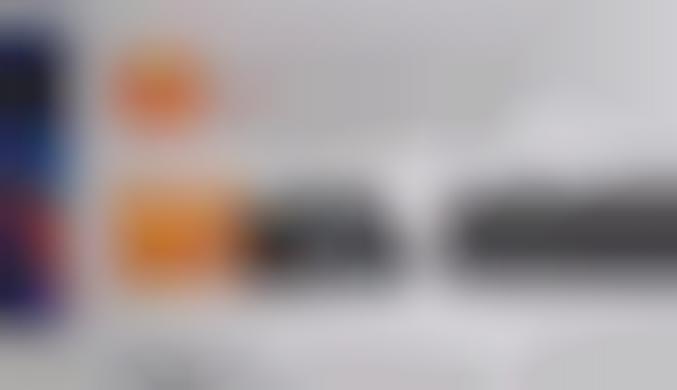
Music publication NME found a way to get free advertising on popular music service Soundcloud through their Sound Typeface campaign. Since Soundcloud visually displays the soundwaves of songs, Brazilian ad agency DM9Sul decided to leverage that to brand NME content.
Musicians were hired to compose tunes with soundwaves which resemble letters. Each snippet of sound and music that the artists created visually represents a different letter. Using the resulting musical typeface, NME created a tune that spells out the letters that make up its brand name.
The music that contains soundwaves with the letters NME was inserted before every posted song. NME looked for new Brazilian bands and added its branded soundwaves to the beginning of each track. As a result, every time the songs were shared, NME tagged along for the ride and received free publicity.
Soundwave Typeface Ads
The Sound Typeface Campaign Visually Sculpts Soundwaves into Words